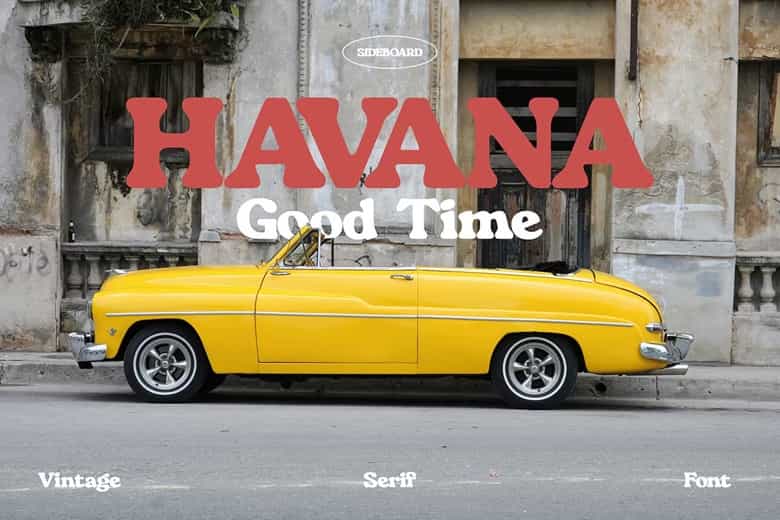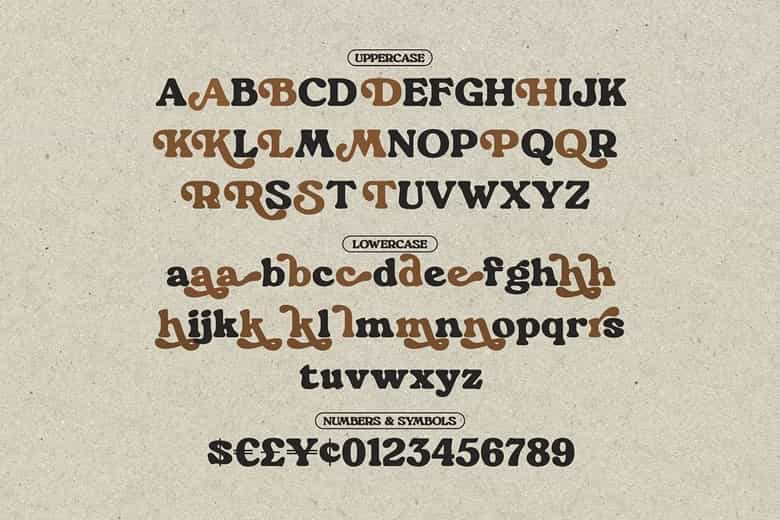
Sideboard is an elegant retro style vintage serif font and has a fully packed appearance with rounded details on the serifs. The tight spacing makes it a perfect font for display purposes such as headlines, logos and advertisement. Get to enjoy the multilingual characters and the numerous ligatures to make your designs as special as you want them to be.